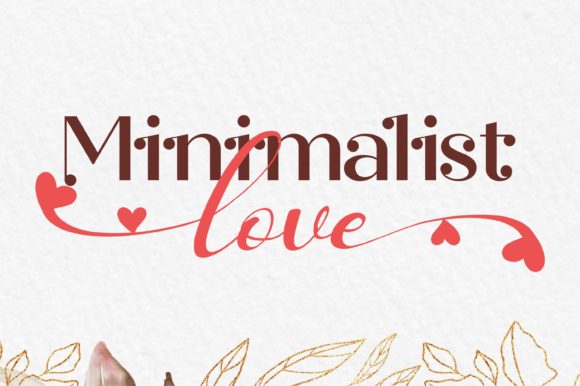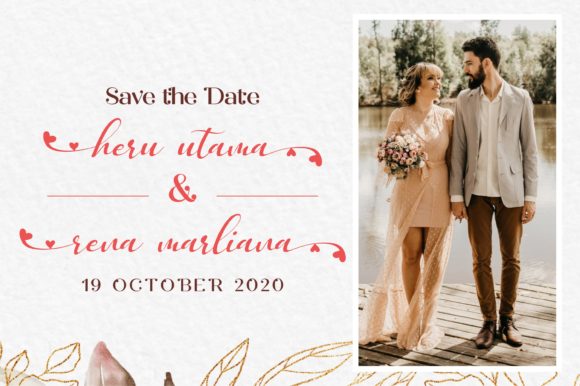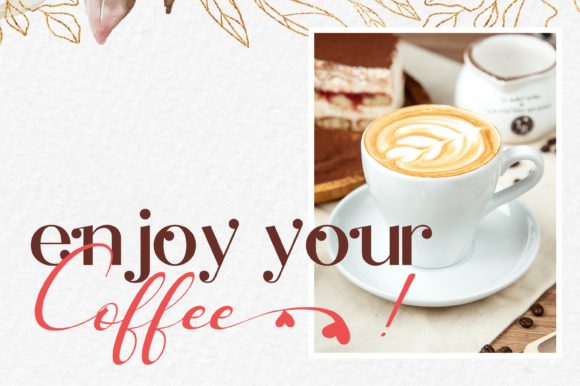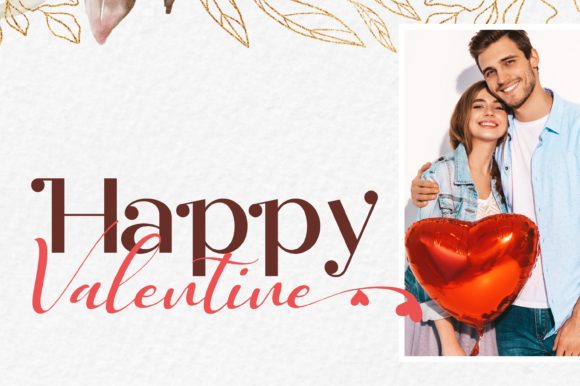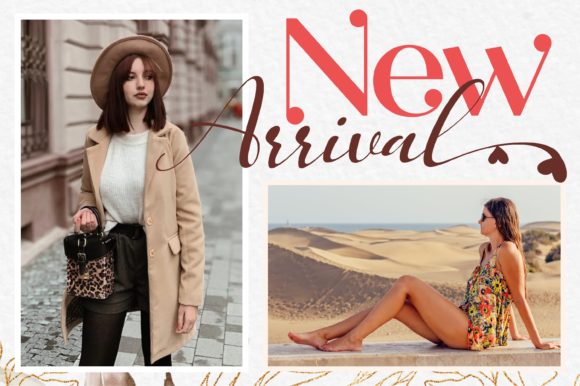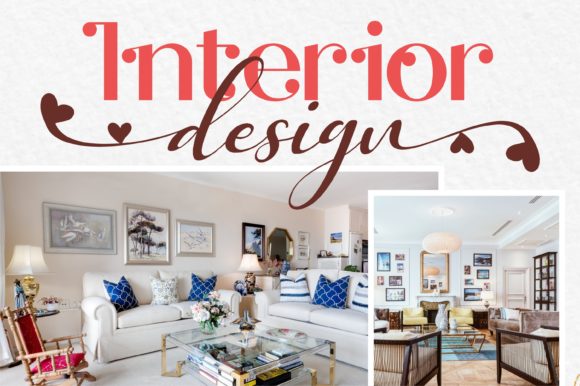
Introduction to Melda Love Font
Melda Love is a beautiful, romantic, and incredibly versatile duo font (display and handwritten).
It has a casual, yet elegant touch It can be used for various purposes such as logos, wedding invitations, headings, t-shirts, letterhead, signage, labels, news, posters, badges and so much more.
Key Features of Melda Love Font
Why Choose Melda Love Font?
Melda Love Font offers exceptional quality and versatility, making it a valuable addition to your design toolkit. Whether you’re creating for personal projects or commercial use, Melda Love Font delivers professional results.